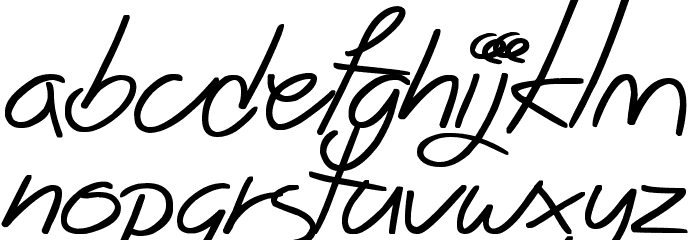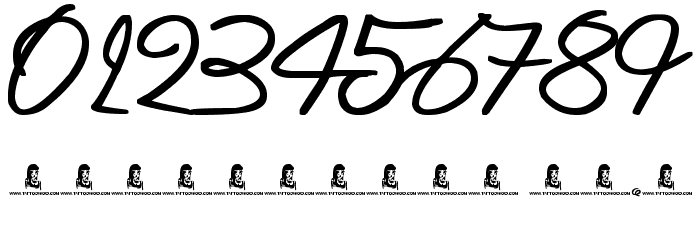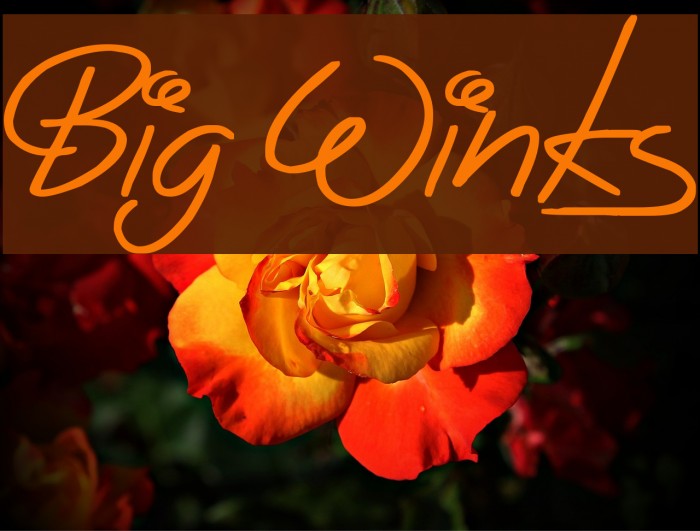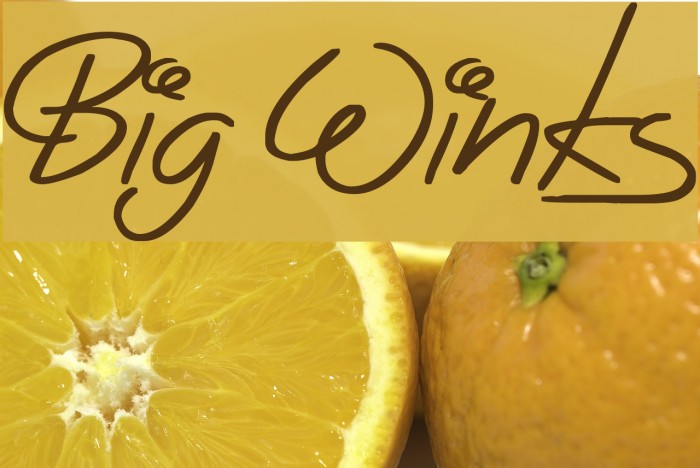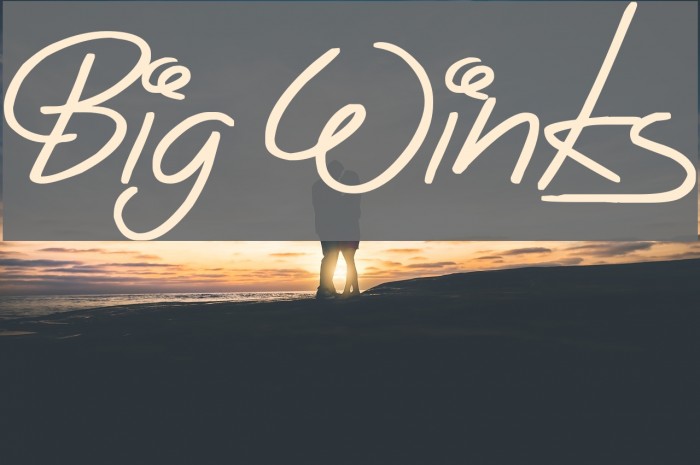
Big Winks Font
This font features a dynamic and expressive handwritten style, characterized by fluid and continuous strokes that mimic natural handwriting. The uppercase letters are bold and slightly slanted, giving a sense of movement and energy. The lowercase letters maintain a consistent flow, with some characters featuring unique loops and swirls that add personality. The numerals are distinct and easy to read, maintaining the same lively style. The special characters are creatively integrated, complementing the overall aesthetic. This font is ideal for projects that require a personal touch or a creative flair.
A dynamic handwritten font with fluid strokes and expressive character.
- Proposed Projects: Greeting cards, personal branding, artistic posters, and creative invitations.
- Use Case: Logos, Headlines, Artistic projects